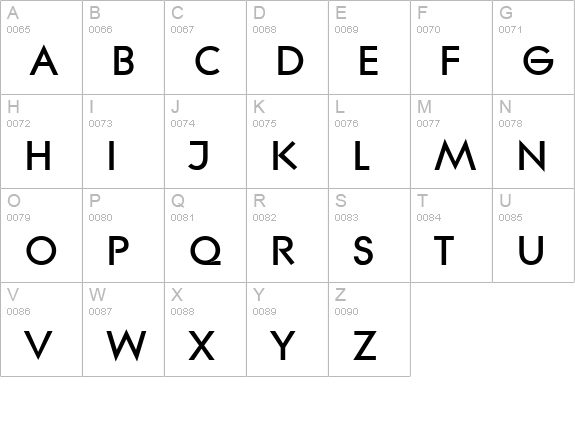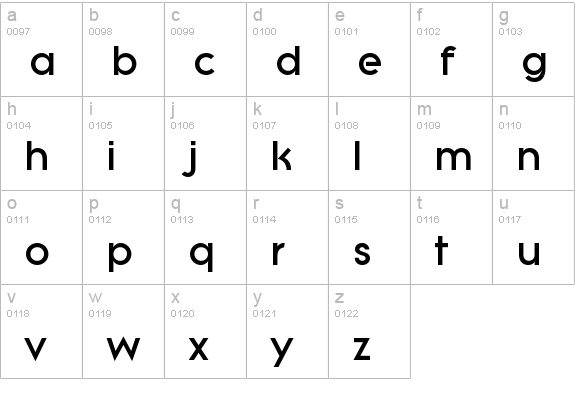
Sabor Display SSi Font Details
Introducing Sabor Display SSi, a captivating and versatile font that effortlessly combines elegance with a touch of playfulness. With its unique and stylish letterforms, Sabor Display SSi will add a touch of sophistication to any design project. This font is perfect for creating eye-catching headlines, attention-grabbing logos, and stunning display text. Its wide range of weights and styles allows for endless creative possibilities, making it ideal for both print and digital applications. Sabor Display SSi is not only visually stunning, but it is also incredibly easy to use. Its well-crafted letterforms ensure legibility at any size, making it a reliable choice for both large-scale designs and small-scale typography. And the best part? Sabor Display SSi is available for free! That's right, this incredible font is freely available to download at FontsMarket.com. Now you can elevate your designs without breaking the bank. So why wait? Unleash your creativity and explore the endless possibilities of Sabor Display SSi. Download it today and experience the magic of this captivating font.